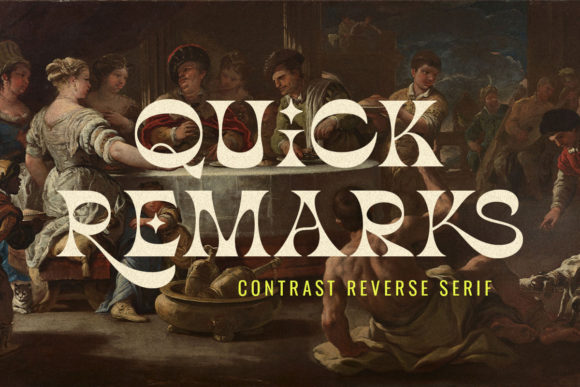
Unleash the Enchanting Allure of Quick Remarks, the Serif Font Designed to Mesmerize
In a world saturated with visual monotony, where fonts often blend together in a sea of sameness, Quick Remarks emerges as a beacon of individuality, a font that commands attention and leaves an indelible impression. This meticulously crafted serif font, with its captivating contrast and striking juxtaposition of thick and thin strokes, is a visual masterpiece that elevates your creative projects to new heights of sophistication.
With Quick Remarks, your words take on a new life, exuding an air of elegance and authority. Its distinct letterforms, adorned with graceful serifs, lend a touch of timeless charm to your designs, evoking a sense of heritage and tradition. Whether you're crafting a compelling magazine ad, designing a captivating poster, or creating a visually stunning logo, Quick Remarks is your trusted ally, transforming your ideas into unforgettable masterpieces.
Step into a Realm of Creativity with Quick Remarks, the Serif Font That Inspires
With Quick Remarks at your fingertips, you unlock a boundless realm of creative possibilities. Its versatility extends across a wide spectrum of design applications, effortlessly adapting to your unique vision. Whether you're a seasoned designer or just starting your creative journey, Quick Remarks is your indispensable companion, guiding you towards design excellence.
Embark on a typographic adventure with Quick Remarks, letting your imagination soar as you craft captivating headlines that leap off the page, design eye-catching logos that leave a lasting impression, and create beautiful presentations that captivate your audience. With its innate ability to add a touch of elegance and refinement to any project, Quick Remarks is the font that turns your creative dreams into tangible realities.
Immerse Yourself in the World of Quick Remarks, the Serif Font That Captivates
Prepare to be mesmerized as Quick Remarks weaves its magic, transforming ordinary words into extraordinary expressions of creativity. Its unique uppercase and lowercase characters dance together in perfect harmony, creating a visual symphony that captivates the eye and sparks the imagination. With Quick Remarks as your font of choice, your designs transcend the boundaries of the mundane, becoming captivating works of art that leave an indelible mark on your audience.
Experience the transformative power of Quick Remarks, the serif font that ignites your creativity and propels your designs to new heights. Its captivating contrast and striking aesthetics will leave your audience spellbound, ensuring that your message is not just heard, but felt. Embrace the allure of Quick Remarks today and unlock a world of design possibilities that will leave you breathless.